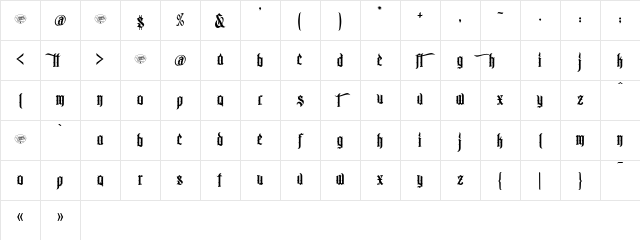
MCF bad manners ww Regular
Foundry: Mister Chek
Designer: Andrey Chernevich
Design Context for MCF bad manners ww
MCF bad manners ww is a composed and adaptable typeface that performs quietly and consistently across a wide range of design contexts.